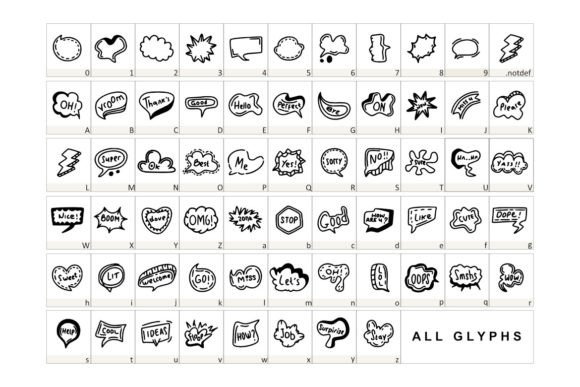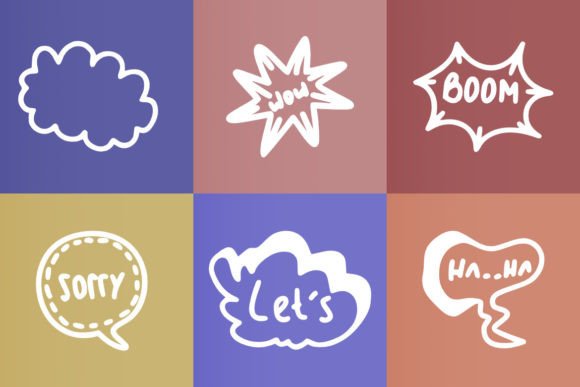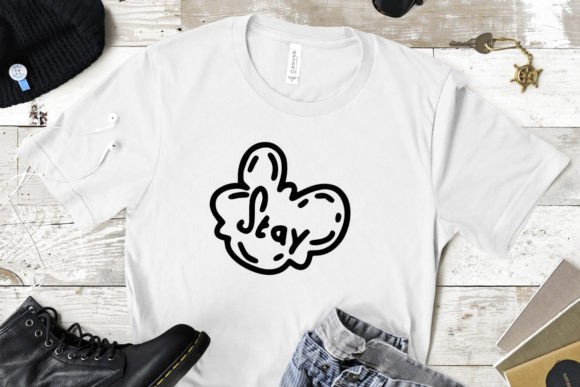
Bubles Font: The Cute and Playful Dingbats Font for Your Creative Projects
Are you a designer, crafter, or DIY enthusiast looking for a fun and versatile font to add a touch of whimsy to your projects? Look no further than Bubles Font! This adorable dingbats font is perfect for a wide range of creative endeavors, from stickers and posters to t-shirts, cards, and apparel graphics. In this article, we’ll explore the features and benefits of Bubles Font, and show you how to make the most of this delightful font in your designs.
What is Bubles Font?
Bubles Font is a unique and charming dingbats font that features a collection of cute and colorful bubble-like characters. The font is designed to be highly versatile and can be used for a variety of purposes, from playful and fun designs to more sophisticated and elegant projects. With its distinctive and eye-catching style, Bubles Font is sure to add a touch of personality to any design.
Key Features of Bubles Font
- Cute and playful design: Bubles Font features a delightful and whimsical design that’s perfect for creating fun and engaging designs.
- Highly versatile: This font can be used for a wide range of projects, from stickers and posters to t-shirts, cards, and apparel graphics.
- Easy to use: Bubles Font is a dingbats font, which means it’s easy to use and doesn’t require any special technical expertise.
- Scalable: The font is highly scalable, making it perfect for use in designs of all sizes.
Creative Uses for Bubles Font
Bubles Font is a highly versatile font that can be used in a wide range of creative projects. Here are some ideas to get you started:
- Stickers: Use Bubles Font to create fun and colorful stickers for parties, events, or everyday use.
- Posters: Create eye-catching posters for advertising, promotion, or decoration using Bubles Font.
- T-shirts and apparel: Add a touch of whimsy to your t-shirts, hoodies, and other apparel with Bubles Font.
- Cards and invitations: Use Bubles Font to create playful and engaging cards and invitations for special occasions.
- Graphics and illustrations: Incorporate Bubles Font into your graphics and illustrations for a unique and eye-catching touch.
Tips for Using Bubles Font
Here are some tips for getting the most out of Bubles Font:
- Experiment with colors: Bubles Font looks great in a variety of colors, so don’t be afraid to experiment and find the perfect hue for your design.
- Mix and match: Combine Bubles Font with other fonts and design elements to create a unique and eye-catching design.
- Keep it simple: Don’t overcomplicate your design – sometimes, less is more, and Bubles Font can be stunning on its own.
Bubles Font is a delightful and versatile dingbats font that’s perfect for designers, crafters, and DIY enthusiasts. With its cute and playful design, high versatility, and ease of use, Bubles Font is sure to add a touch of whimsy to any project. Whether you’re creating stickers, posters, t-shirts, or cards, Bubles Font is a great choice. So why not give it a try and see what amazing designs you can create?